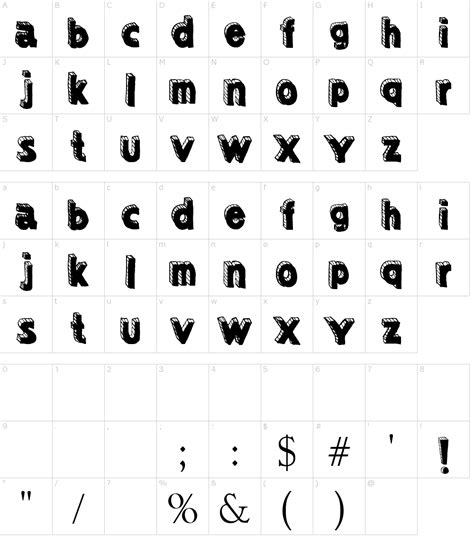
Alright, guys, let’s dive into the world of 3DSE fonts ! If you’re here, you’re probably looking to add a little pizzazz to your projects, whether it’s for gaming, graphic design, or just because you think they’re super cool (and who wouldn’t?). Finding and downloading the right font can feel a bit like searching for a needle in a haystack, but fear not! I’m here to guide you through the process, making it as smooth and enjoyable as possible. We’ll cover everything from what 3DSE fonts actually are , to where you can find them, and how to make sure you’re getting a safe and legal download. Let’s get started, shall we?
First things first: What exactly is a 3DSE font? Simply put, a 3DSE font (likely referring to some variation of a 3D effect font or a font styled with a 3D appearance) is a typeface designed to give the illusion of depth and three-dimensionality. Unlike regular, flat fonts, these fonts often feature shadows, bevels, outlines, or other effects that make the letters appear to pop off the screen or page. They’re fantastic for grabbing attention and adding a unique touch to your designs. Think of them as the ultimate way to make your text stand out from the crowd! They’re especially popular in gaming, where bold and eye-catching text is crucial, but they’re also widely used in other areas like logos, posters, and web design. The key is to find one that fits your specific project and the overall aesthetic you’re aiming for. Different 3DSE fonts will have different styles – some might be sleek and modern, others could be gritty and industrial, and some might even have a futuristic feel. The possibilities are truly endless, and that’s part of what makes them so much fun.
Now, before we get too deep, it’s worth noting that the term “3DSE” might not be a universally recognized term for this style of font. However, the concept is clear – we’re looking for fonts with a 3D effect. That being said, the quality of a 3D effect font can vary greatly. Some are incredibly detailed and sophisticated, while others might look a little amateurish. It all comes down to the design and execution. A well-designed 3DSE font can significantly elevate your project, giving it a professional and visually appealing look. But a poorly designed one can look clunky and distracting. So, choosing wisely is essential! As we go along, keep in mind the overall tone and purpose of your project. Is it meant to be playful and fun, or serious and professional? This will help you narrow down your choices and find the perfect font that complements your vision. Ready to jump into the exciting world of 3DSE fonts? Let’s keep going.
Another option is to browse on MyFonts . This is another premium font marketplace. It features a vast selection of fonts. They have a good reputation for high-quality fonts. It is a good place to discover a specific style or a unique font. Check the licenses and terms carefully before downloading. When searching for 3DSE fonts, use specific keywords like “3D,” “shadow,” “bevel,” or “extruded” to narrow your search. Take your time, explore different websites, and don’t be afraid to experiment with different fonts. The more you browse, the better chance you’ll find the perfect one to bring your project to life. Happy hunting, guys!
Downloading & Installing Your 3DSE Font (The Easy Way)
Alright, so you’ve found a font you absolutely love. Now comes the exciting part: downloading and installing it! The process is usually pretty straightforward, but I’ll walk you through the steps to make sure everything goes smoothly, no matter your operating system. After all, what good is a fantastic font if you can’t actually use it?
First, make sure you’re downloading from a trustworthy source. Always download fonts from reputable websites. Avoid clicking on suspicious links or downloading fonts from unknown sources, as they could contain malware or viruses. Once you’ve downloaded the font file, it’ll typically be in a zipped folder. You’ll need to unzip this folder to access the font files themselves. This can be done by right-clicking on the zipped folder and selecting “Extract All” or a similar option. After extracting the files, you’ll usually find the font in two main formats: .ttf (TrueType Font) and .otf (OpenType Font). These are the standard formats for fonts. TrueType fonts are commonly compatible with both Windows and Mac operating systems, and OpenType fonts offer a broader range of features, like advanced typographic capabilities.
Installing on Windows is easy. Simply right-click on the font file (.ttf or .otf) and select “Install.” The font will then be installed on your system and available for use in your applications. Alternatively, you can copy the font files into the Windows Fonts folder (usually found in C:\Windows\Fonts). Windows will automatically install the fonts when you open this folder.
Installing on macOS is just as simple. Double-click on the font file (.ttf or .otf). A font preview window will appear. Click the “Install Font” button at the bottom of the window, and macOS will install the font for you. Another method is to open the Font Book application, which is pre-installed on every Mac. Drag the font files into the Font Book window to install them. The app will organize all your installed fonts and make it easy to manage them.
Once the font is installed, it should be available in all your design applications, such as Adobe Photoshop, Illustrator, and Canva, or any other program that allows you to choose fonts. If the font isn’t appearing immediately, try restarting the application or your computer. This will ensure that the application recognizes the newly installed font. You can now use your awesome new 3DSE font to spice up your projects! Experiment with different sizes, colors, and effects to get the perfect look. Congratulations, you’re now well on your way to becoming a 3DSE font master!
Avoiding the Pitfalls: Licensing, Legality, & Safety
Before you go wild with your new 3DSE fonts, it’s super important to understand the legal stuff. Nobody wants to get into trouble over a font, so let’s make sure we’re all on the same page regarding licensing, legality, and safety. This section is all about protecting yourself and making sure you’re using fonts responsibly. It might seem boring, but trust me, it’s worth it!
Licensing is the key. The license dictates how you can use a font. Different fonts have different licenses, and it’s essential to understand the terms of each one before using it. The most common licenses include: Free for Personal Use: This means you can use the font for personal projects (e.g., creating invitations, designing social media posts for yourself) but not for commercial purposes. Free for Commercial Use: This allows you to use the font for both personal and commercial projects (e.g., designing logos, creating marketing materials for your business). Commercial License (Paid): This is for fonts you purchase and grants you broad usage rights for commercial projects. Always read the font’s license agreement carefully before downloading and using it. The license information is usually available on the website where you downloaded the font. Pay attention to any restrictions, such as limitations on the number of projects you can use the font for, or whether you need to give credit to the font designer.
Legality is also important. Always download fonts from legitimate sources. Avoid downloading fonts from unauthorized websites, as this could be a copyright violation. Respecting copyright laws helps protect the designers and encourages them to create more amazing fonts. If a font requires a paid license, make sure you purchase it from the official source. Never share or distribute fonts you don’t have the legal right to share.
Safety is paramount. Make sure you’re downloading fonts from reputable websites, as mentioned earlier. Be cautious of websites that look suspicious or ask for unnecessary personal information. Always scan any downloaded files with antivirus software before installing them on your computer. This helps protect you from malware or viruses that might be disguised as font files. By being mindful of these factors, you can enjoy using your 3DSE fonts with peace of mind. Remember, a little bit of precaution goes a long way in ensuring a safe and legally compliant experience!
Troubleshooting Common Font Problems
Even after you’ve downloaded and installed your dream 3DSE font, you might run into a few snags. Don’t worry, guys, it happens! Here’s a quick guide to some common font problems and how to fix them.
Font Not Showing Up: This is probably the most common issue. If you don’t see your new font in your design application, try these solutions: Restart your design application. Sometimes, the application needs to be restarted to recognize the newly installed font. Restart your computer. This is a sure-fire way to ensure that your system has loaded the new font correctly. Make sure the font is installed correctly. Go back to the installation steps and double-check that you’ve installed the font in the correct location. Check your font management software (if you use one). Some font management programs might have settings that need to be adjusted to make the new font visible. Clear your font cache. Sometimes, the font cache can cause issues. You can usually clear the cache in your operating system’s settings or through a font management program.
Font Looks Distorted or Incorrect: If the font appears distorted, pixilated, or the characters don’t display correctly, here are some things to try: Make sure you’re using the correct font file. If the font came with multiple files (e.g., .ttf and .otf), try using the other file. Check your design application’s settings. Some applications have settings that affect how fonts are displayed. Make sure those settings are configured correctly. Update your graphics drivers. Outdated graphics drivers can sometimes cause font display issues. Make sure your system meets the font’s requirements. Some fonts have specific system requirements. Check if your computer meets these.
Font is Missing Characters: This can happen if the font doesn’t support certain characters (like special symbols or characters from a different language). Make sure the font supports the characters you need. If it doesn’t, you might need to find a different font. Check for font updates. Sometimes, font developers release updates to fix bugs or add new characters. If you’re still struggling, search online for the specific font and the problem you’re experiencing. There’s a good chance someone else has encountered the same issue, and you can find a solution. With a little troubleshooting, you can usually overcome these problems and get your 3DSE font working perfectly. Don’t be discouraged; just keep experimenting until you find the solution that works for you!
Unleash Your Creativity With 3DSE Fonts!
So there you have it, guys! We’ve covered everything from what 3DSE fonts are to how to find, download, install, and use them safely and legally. Now, it’s time to unleash your creativity and start using these awesome fonts in your projects. Whether you’re a seasoned designer or just starting out, 3DSE fonts can add a unique and eye-catching touch to your work. Remember to be patient, experiment with different fonts and styles, and don’t be afraid to try new things. The world of typography is vast and exciting, and there’s always something new to discover. So, go out there, find your perfect 3DSE font, and make your designs shine! Happy designing, and have fun playing around with these fantastic fonts! The best designs are always the ones that come from your imagination. So, stay creative, keep exploring, and most importantly, enjoy the process! Happy creating! And, one last tip: Don’t forget to back up your fonts! You never know when you might need them again, and it’s always good to have a backup copy in case of any issues. Go create something amazing!